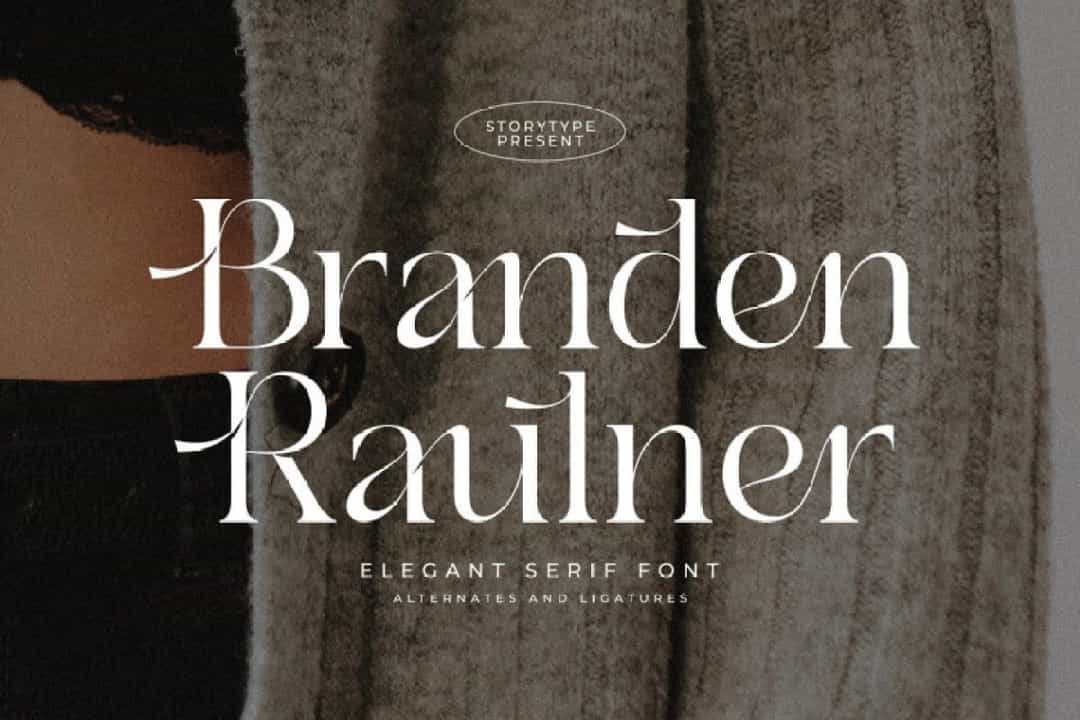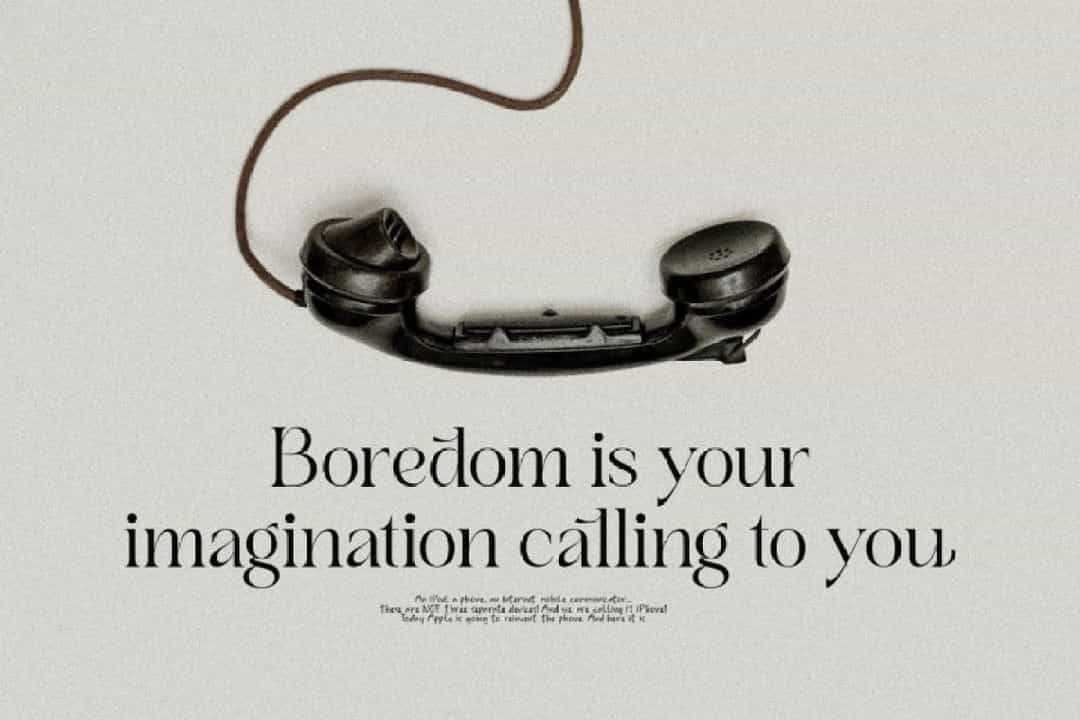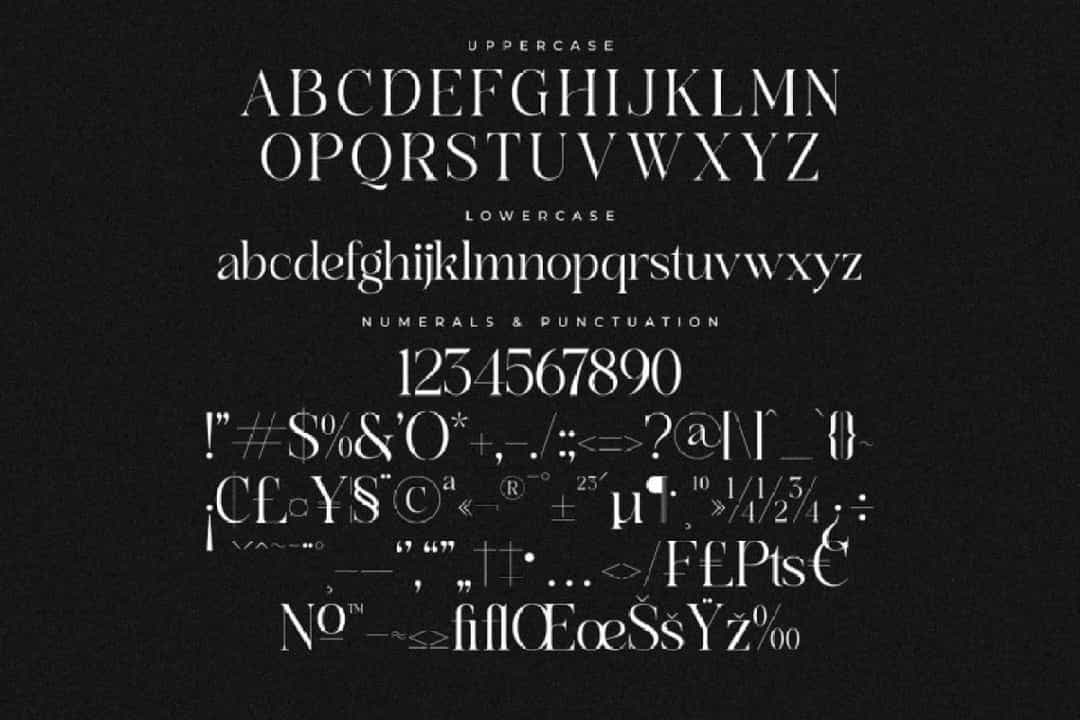
Branden Raulner is an eye-catching serif font distinguished by its curvy curves, making it perfect for editorial or fashion designs. Explore all its endless possibilities by using this font in designing or fashion designs!